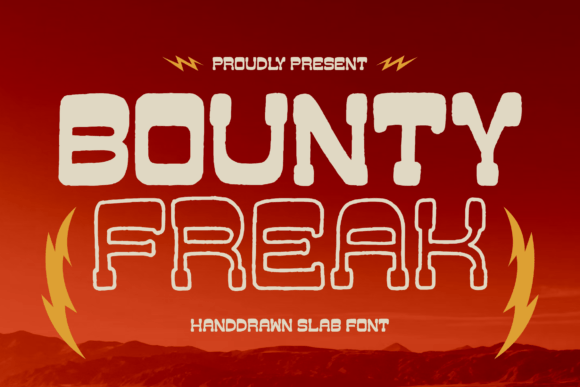
Prepare to be mesmerized by Bounty Freak, a font that exudes boldness and authority like no other. Its assertive slab serif strokes command attention, leaving an indelible mark on any design. Immerse yourself in the world of typography as Bounty Freak takes you on a journey of creativity and expression.
With Bounty Freak, mediocrity takes a back seat. Its robust letterforms exude a sense of power and confidence, adding an undeniable edge to your designs. As a member of the slab serif family, Bounty Freak boasts a solid foundation that ensures remarkable readability, even at smaller sizes.
Step into the spotlight and let your words shine with Bounty Freak. Its commanding presence is perfect for captivating titles, logos, and headlines, demanding attention and leaving a lasting impact. Unleash your inner designer and explore endless possibilities, transforming ordinary text into extraordinary statements.
Bounty Freak is not just a font; it's an artistic tool that empowers you to craft designs that resonate with your audience. Whether you're working on branding, packaging, or web design, Bounty Freak seamlessly adapts to your vision, adding a touch of sophistication and originality.
Join the ranks of creative professionals who have discovered the transformative power of Bounty Freak. Its versatility knows no bounds, making it the perfect choice for a wide range of projects. From vintage-inspired designs to cutting-edge contemporary concepts, Bounty Freak effortlessly elevates your work to new heights.